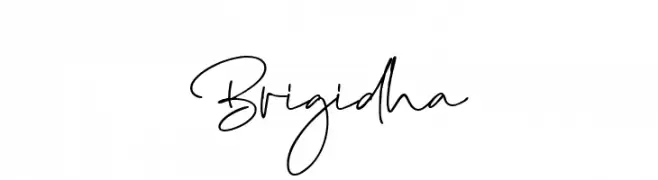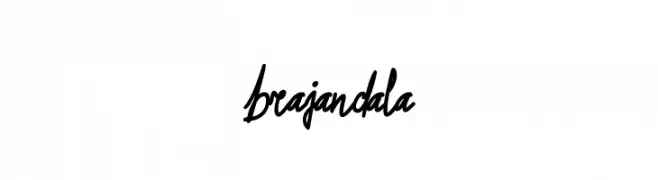
A casual, elegant handwritten font with fluid strokes.
A bold, elongated font with a hand-drawn, vintage feel.
A bold, dynamic handwritten font with thick, uneven strokes and a casual, energetic feel.
A flowing, elegant script font with a natural handwriting style.
A sleek, extra condensed, and thin font with a modern and minimalist design.
A playful, handwritten-style font with bold, rounded characters.
A modern, geometric sans-serif font with clean lines and balanced spacing.
A bold decorative font with uppercase letters in circles and feminine symbols.
A modern, monolinear font with rounded corners and a cohesive, geometric style.
A playful, dynamic handwritten font with fluid strokes and a casual style.